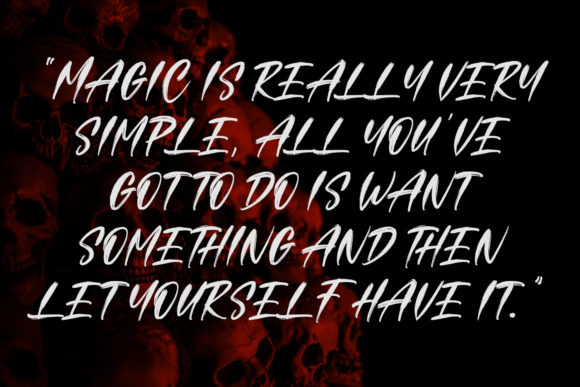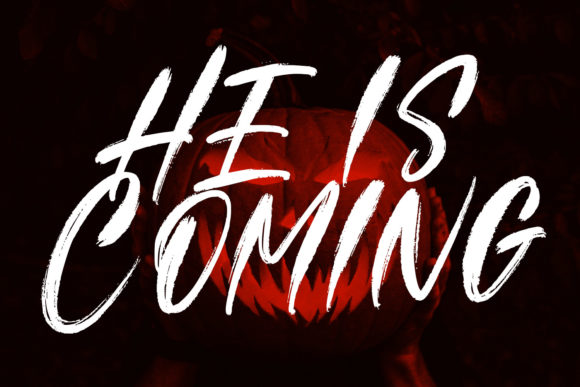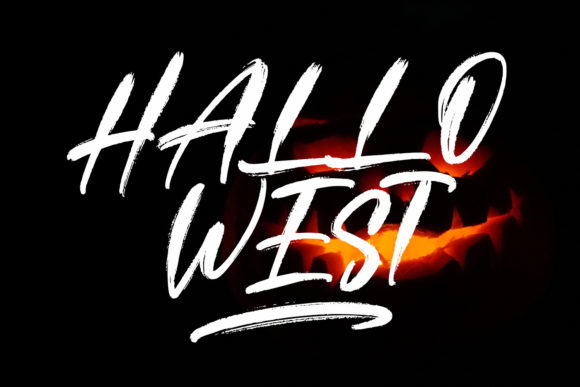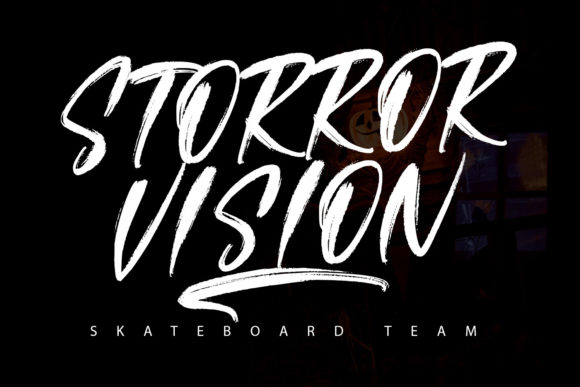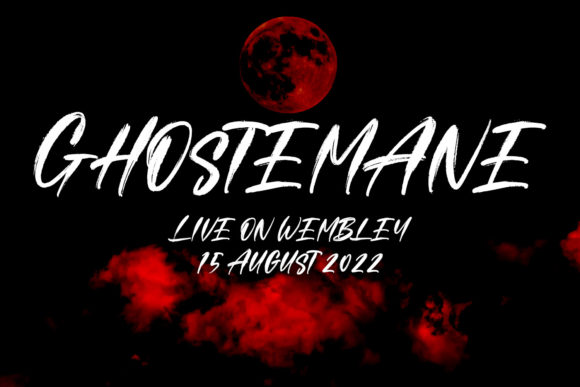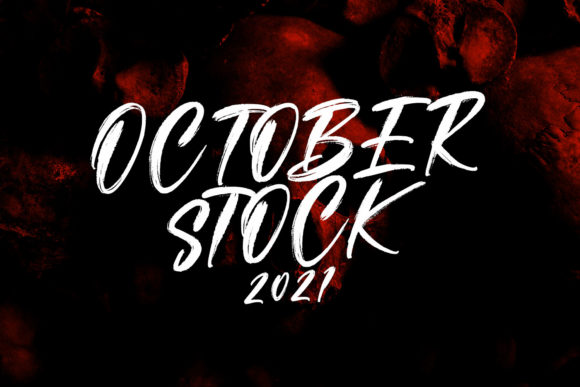
Unleash the Creepiness: Discover the After Coma Font
Are you a designer or crafter looking for a font that will add a touch of eeriness to your creations? Look no further than the After Coma font. This creepy and brushed display font is sure to elevate any project, regardless of the topic. With its unique and distressed look, After Coma is an incredible asset to any font library.
The Origins of After Coma
The After Coma font is a relatively new addition to the world of typography, but it has quickly gained popularity among designers and crafters. The font’s creator aimed to design a font that would capture the essence of a post-apocalyptic world, where the rules of traditional typography no longer apply. The result is a font that is both haunting and beautiful, with a distinctively creepy feel.
Key Features of After Coma
So, what makes After Coma so special? Here are a few key features that set this font apart:
- Creepy and Distressed Look: The After Coma font has a distinctly creepy and distressed look, with rough edges and irregular shapes. This gives it a unique and unsettling feel that is perfect for projects that require a touch of horror or suspense.
- Brushed Display Font: After Coma is a brushed display font, which means it has a rough, hand-painted look. This gives it a highly expressive and emotive feel, making it perfect for use in titles, headings, and other display text.
- Versatile: Despite its creepy look, After Coma is a surprisingly versatile font. It can be used for a wide range of projects, from horror movies and haunted house attractions to Halloween decorations and creepy crafts.
Using After Coma in Your Designs
So, how can you use After Coma in your designs? Here are a few ideas to get you started:
- Horror Movies and TV Shows: After Coma is a perfect fit for horror movies and TV shows. Use it for titles, posters, and other promotional materials to create a creepy and unsettling atmosphere.
- Halloween Decorations: Add a touch of creepiness to your Halloween decorations with After Coma. Use it to create spooky signs, invitations, and other decorations that will make your party stand out.
- Creepy Crafts: If you’re a crafter, After Coma is a great font to use for your creepy crafts. Use it to create spooky signs, labels, and other embellishments for your projects.
Tips for Working with After Coma
Here are a few tips for working with After Coma:
- Use it Sparingly: Because of its distressed look, After Coma can be overwhelming if used too much. Use it sparingly to create a greater impact.
- Experiment with Colors: After Coma looks great in a range of colors, from bold and bright to muted and pastel. Experiment with different colors to find the look that works best for your project.
- Pair it with Other Fonts: After Coma can be paired with other fonts to create a unique and interesting look. Try pairing it with a clean, sans-serif font for a striking contrast.
In conclusion, the After Coma font is a creepy and brushed display font that is sure to elevate any project. With its unique and distressed look, it’s perfect for designers and crafters who want to add a touch of eeriness to their creations. Whether you’re working on a horror movie, Halloween decorations, or creepy crafts, After Coma is an incredible asset to your font library.